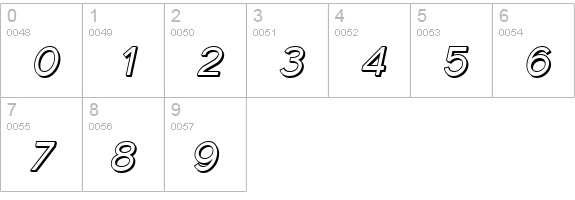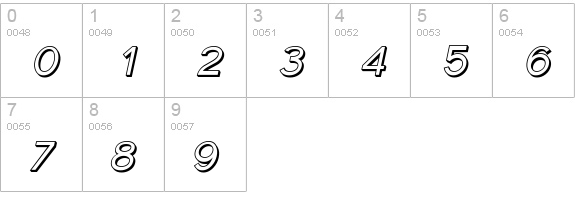
Florencesans SC Shaded Italic is a distinctive, italic variant in the Florencesans typeface family \xE2\x80\x94 well suited to design and typography projects.
Florencesans SC Shaded Italic font is a stunning and elegant typeface that adds a touch of sophistication to any project. With its unique shading and italicized style, this font exudes a sense of modernity and creativity. The intricate curves and sleek lines of Florencesans SC Shaded Italic make it perfect for adding a dynamic flair to branding materials, invitations, posters, and more. What makes this font even more appealing is that it is free to download at FontsMarket.com. This means you can easily access and use this beautiful typeface for all your design needs without any cost. Whether you're a professional designer looking to elevate your projects or a hobbyist seeking to add a touch of elegance to your creations, Florencesans SC Shaded Italic font is the perfect choice. Download it today and unleash your creativity with this exquisite and versatile typeface.